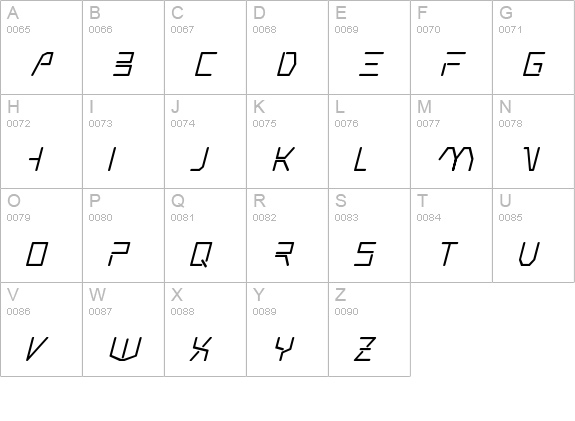
Rsandromed Italic is a distinctive, italic variant in the Rsandromed typeface family \xE2\x80\x94 well suited to design and typography projects.
Introducing Rsandromed Italic font - a sleek and sophisticated typeface that exudes elegance and modernity. With its unique slanted design and clean lines, Rsandromed Italic is perfect for adding a touch of sophistication to your projects. This versatile font is ideal for a wide range of design applications, from logos and branding to website headers and invitations. Best of all, Rsandromed Italic is available for free download at FontsMarket.com. So you can easily add this stylish font to your collection without any cost. Don't miss out on the opportunity to enhance your designs with the timeless appeal of Rsandromed Italic font. Download it today and elevate your creative projects to the next level.